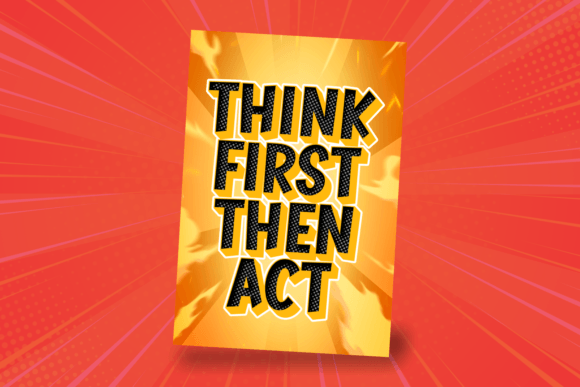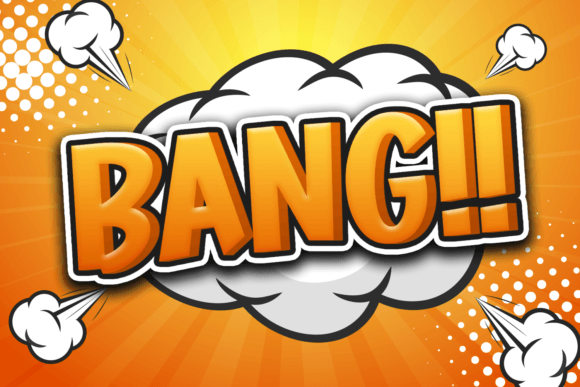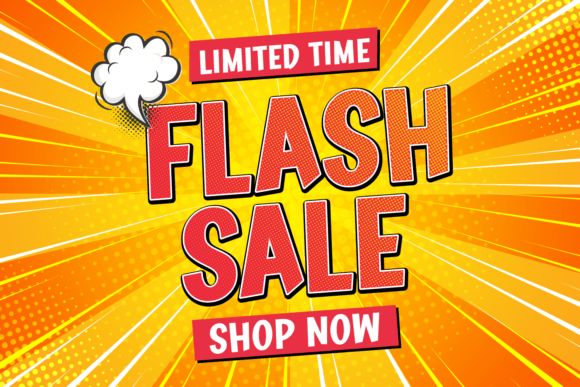
The Ultimate Guide to Flash Trick Font: Elevate Your Typography Designs
I’ll never forget the time I was working on a project for a client who needed a bold and playful font to capture the essence of their brand. I spent hours scouring the internet for the perfect font, but nothing seemed to fit the bill. That was until I stumbled upon Flash Trick Font. ✨ In this article, I’ll share my experience with this amazing font, its features, and how to use it to take your typography designs to the next level.
An Honest Review of Flash Trick Font
So, what makes Flash Trick Font so special? Let’s dive into the good stuff and some minor quirks.
- 💥 Bold and Playful: Flash Trick Font is perfect for making a statement with your designs. Its bold and playful style is sure to grab attention.
- ✅ Versatile: This font is suitable for a wide range of design projects, from posters and book covers to advertising materials and headlines.
- 🎨 Highly Customizable: With OpenType features and glyphs, you can experiment with different styles and variations to make your designs truly unique.
While Flash Trick Font is an amazing font, there are a few things to keep in mind:
- 🤔 Limited Use in Small Sizes: Due to its bold nature, Flash Trick Font may not be the best choice for small font sizes or body text.
- ⚠️ Some Characters May Not be Suitable for All Languages: As with any font, some characters may not be optimized for all languages or scripts.
The Backstory of Flash Trick Font
Flash Trick Font was designed by a team of creatives who wanted to create a bold and playful font that would inspire designers to think outside the box. With its unique blend of modern and classic elements, Flash Trick Font is the perfect addition to any design project.
Q: What is Flash Trick Font?
A: Flash Trick Font is a bold and playful display font designed to elevate your typography designs.
Q: Is Flash Trick Font suitable for body text?
A: While Flash Trick Font is perfect for headlines and titles, it may not be the best choice for body text due to its bold nature.
Q: Does Flash Trick Font support OpenType features?
A: Yes, Flash Trick Font supports OpenType features, including glyphs and stylistic alternates.